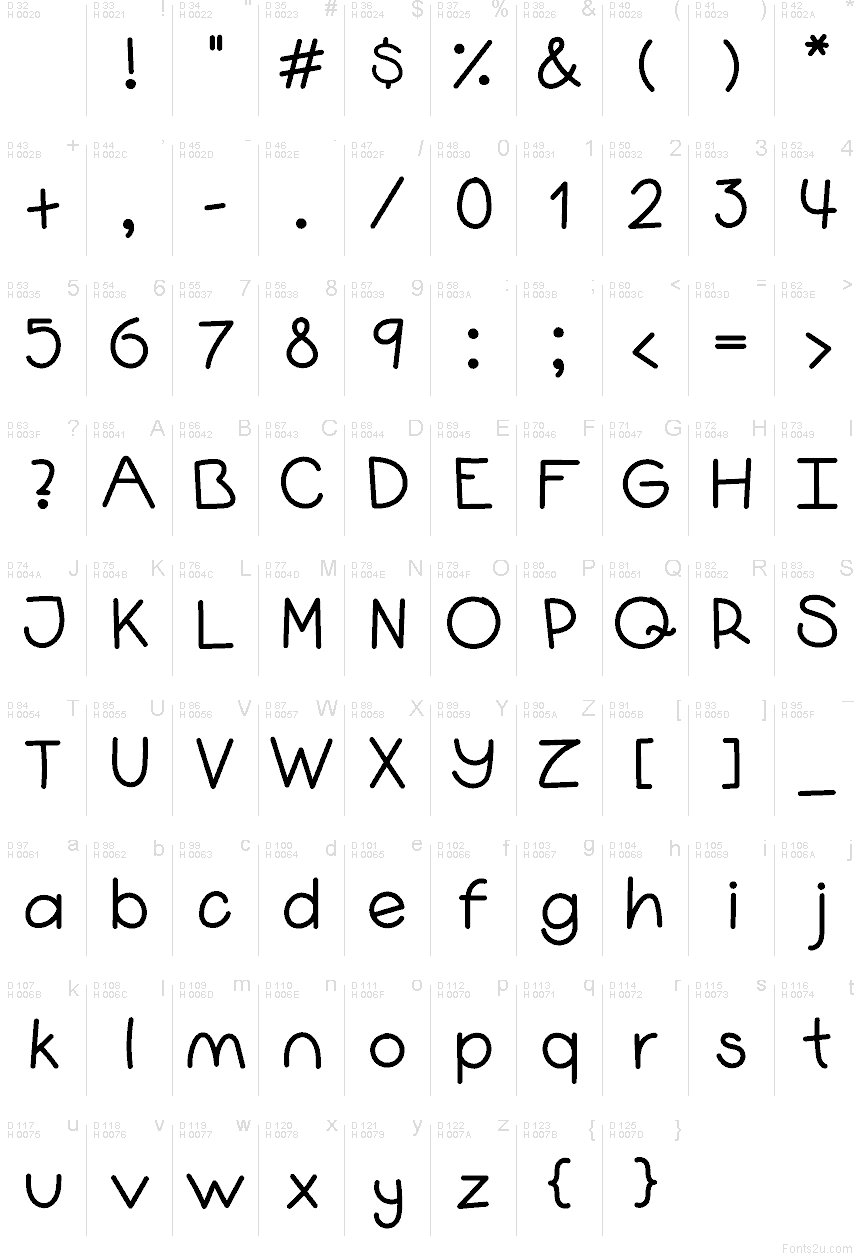
Brima
Brima font by Christopher Gonzalez is a free handwritten font that feels like neat marker lettering on smooth paper. Its rounded strokes, easy curves, and slightly bouncy rhythm give it a friendly, approachable voice without slipping into messy or chaotic. Letters sit comfortably apart, so words stay clear and readable even in longer lines, keeping that casual, human touch intact.
Using Brima, this free font really shines on kids’ book covers, classroom posters, name tags, craft packaging, social graphics, and playful branding that needs warmth more than polish. It carries a cheerful, conversational tone that works beautifully for anything aimed at families, schools, or creative hobbies. Pair Brima with a clean geometric sans serif for body text, and let Brima handle the headlines, labels, and little handwritten asides.